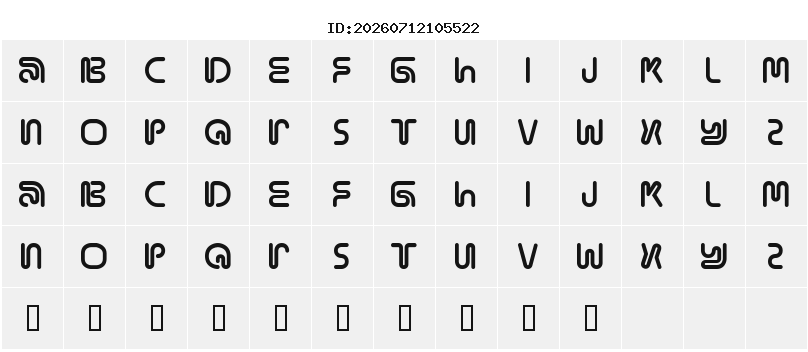
MamaRound Preview
• Font Name: MamaRound
• Full Font Name: MamaRound
• PostScript Name: MamaRound
About MamaRound.ttf
MamaRound.ttf is a modern, elegant sans-serif font designed for ultimate readability and visual harmony. Perfect for branding, headlines, web design, and print materials.